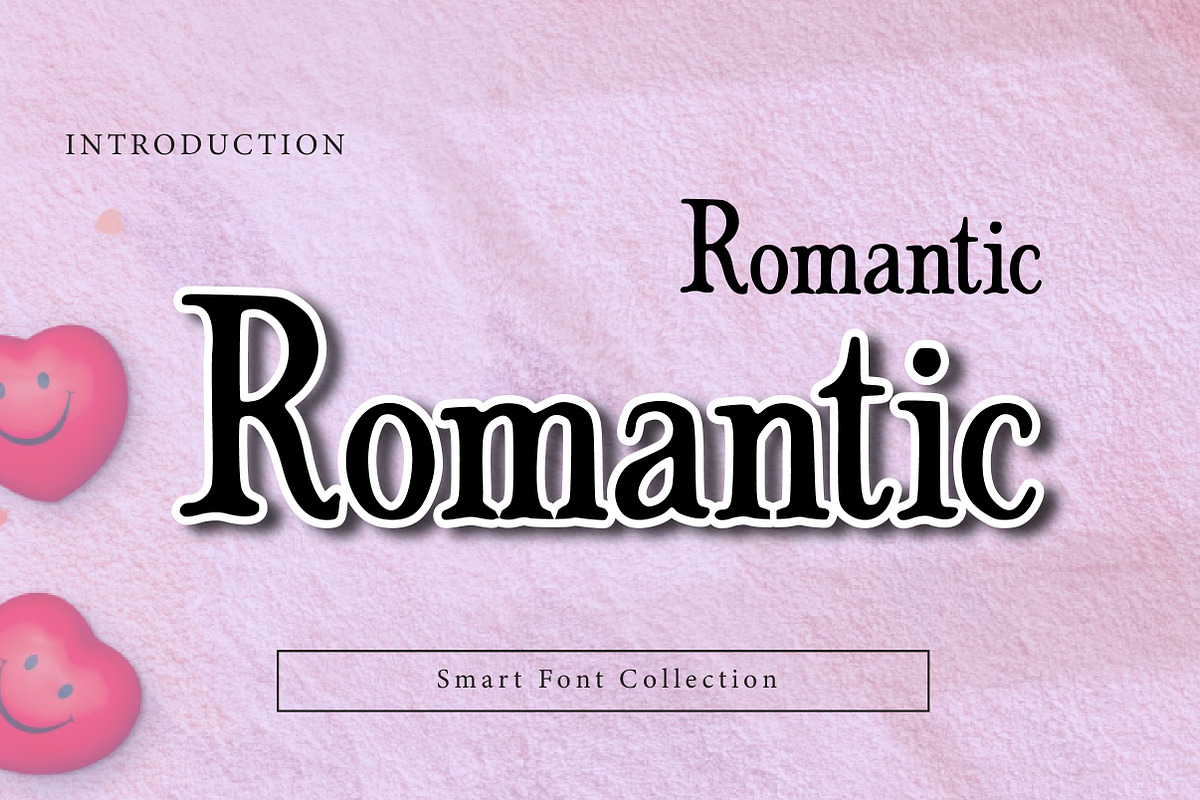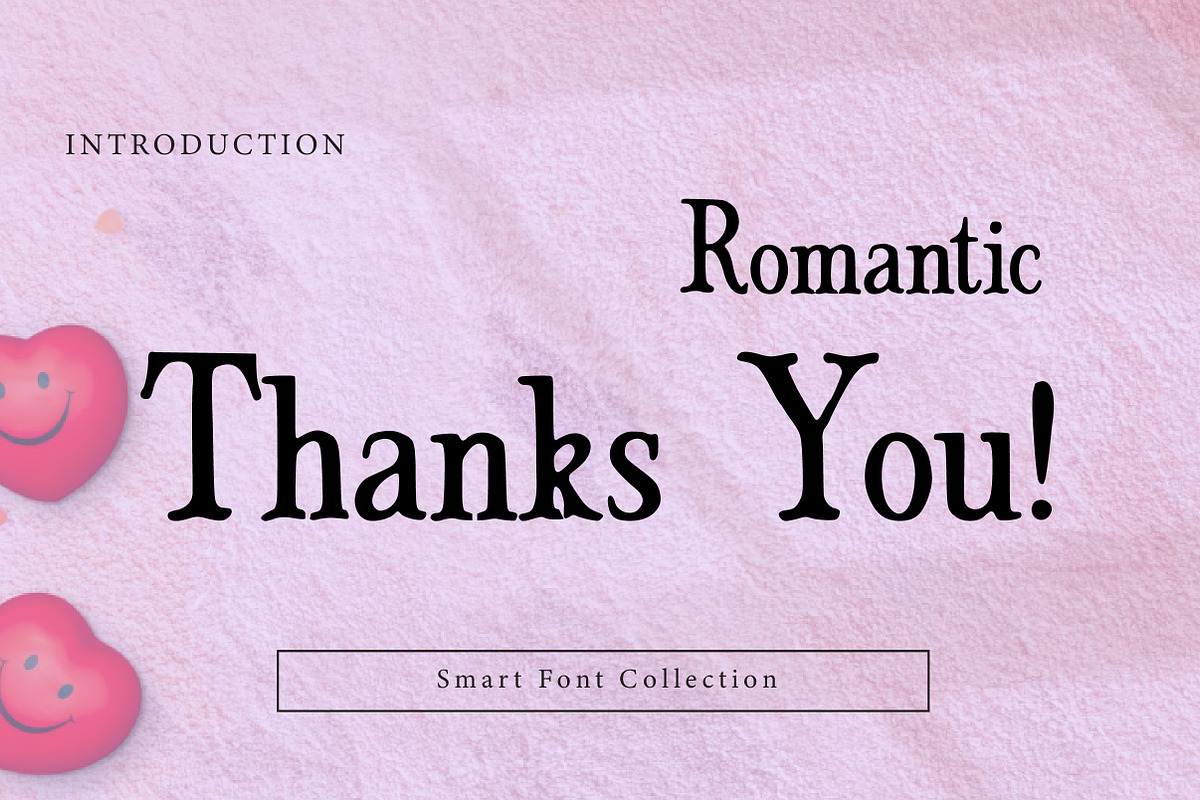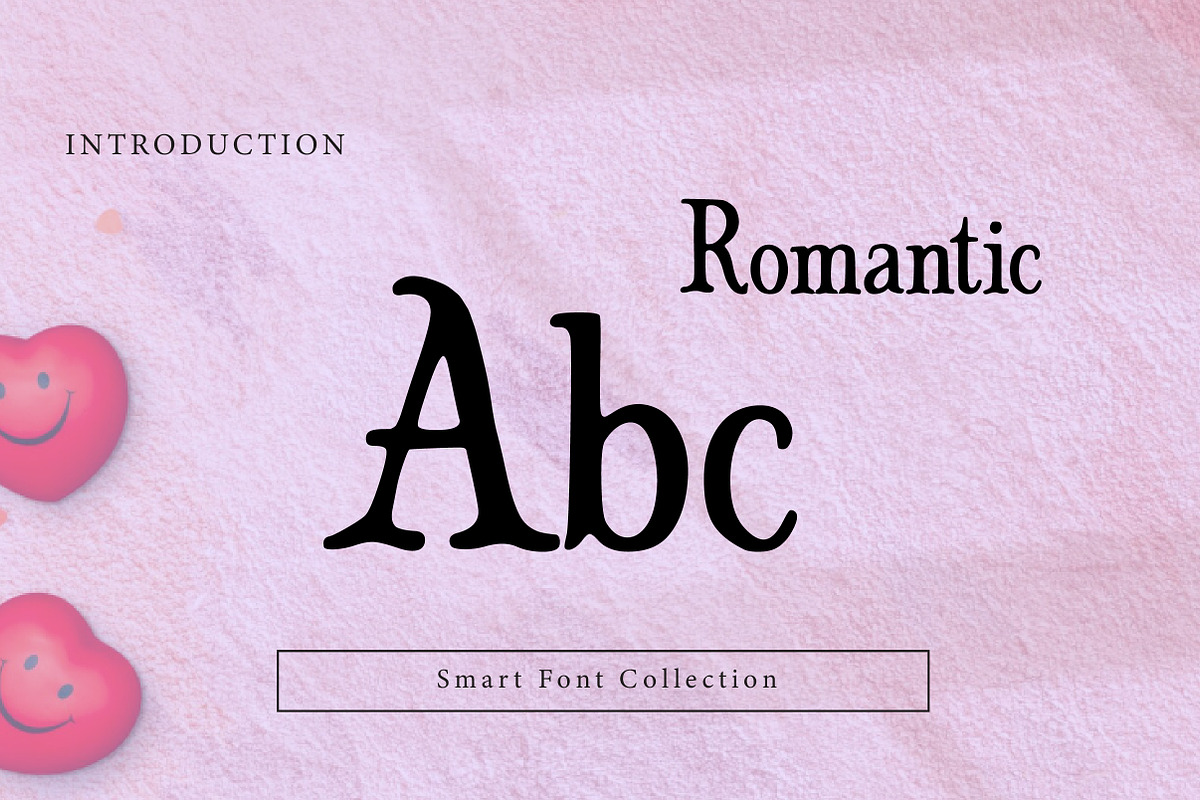
Romantic
Romantic is a soft, elegant serif typeface designed to express emotion, warmth, and timeless beauty. With its gentle curves, rounded details, and classic proportions, this font creates a charming and graceful visual tone perfect for romantic and expressive designs.
Ideal for wedding invitations, love-themed branding, book covers, quotes, packaging, greeting cards, and editorial layouts, Romantic brings a delicate yet confident personality to any project. Its balanced serif style ensures readability while maintaining a heartfelt and artistic aesthetic across both print and digital use.
Romantic is perfect for designers looking to add a poetic, emotional, and elegant touch to their typography.